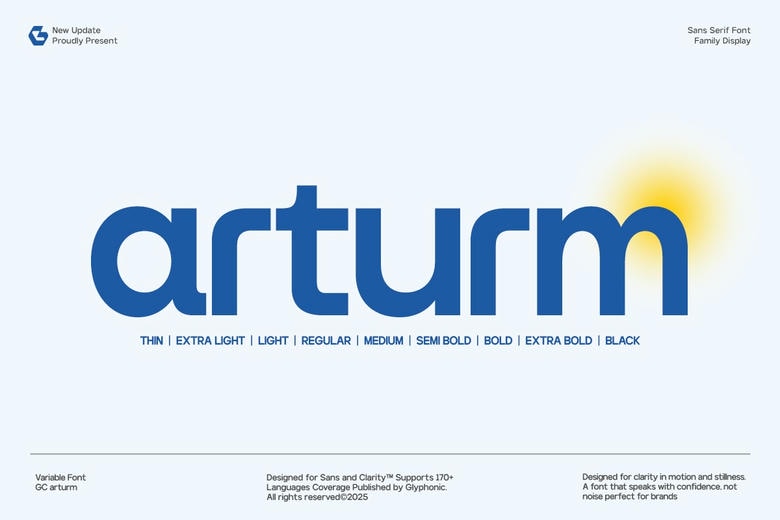
GC Arturm Font Family
GC Arturm is a Modern Variable Sans Serif typeface, balanced, and clear versatile typeface. As a variable font, it is also designed to allow the seamless flexibility between variable weights, between Thin to Black, making the designers have total control over the tone and expression. Its transparent geometric form and perfect simplicity provoke a modern form of aesthetics that can fit any visual setting.
GC Arturm is ideal to brand, to create user interfaces, motion graphics, editorial layouts, and corporate design and it has a confident and modern appearance. Every character is optimally harmonized so that it is legible and has a visual consistency in all weights and sizes.
GC Arturm Sans Serif Font Family